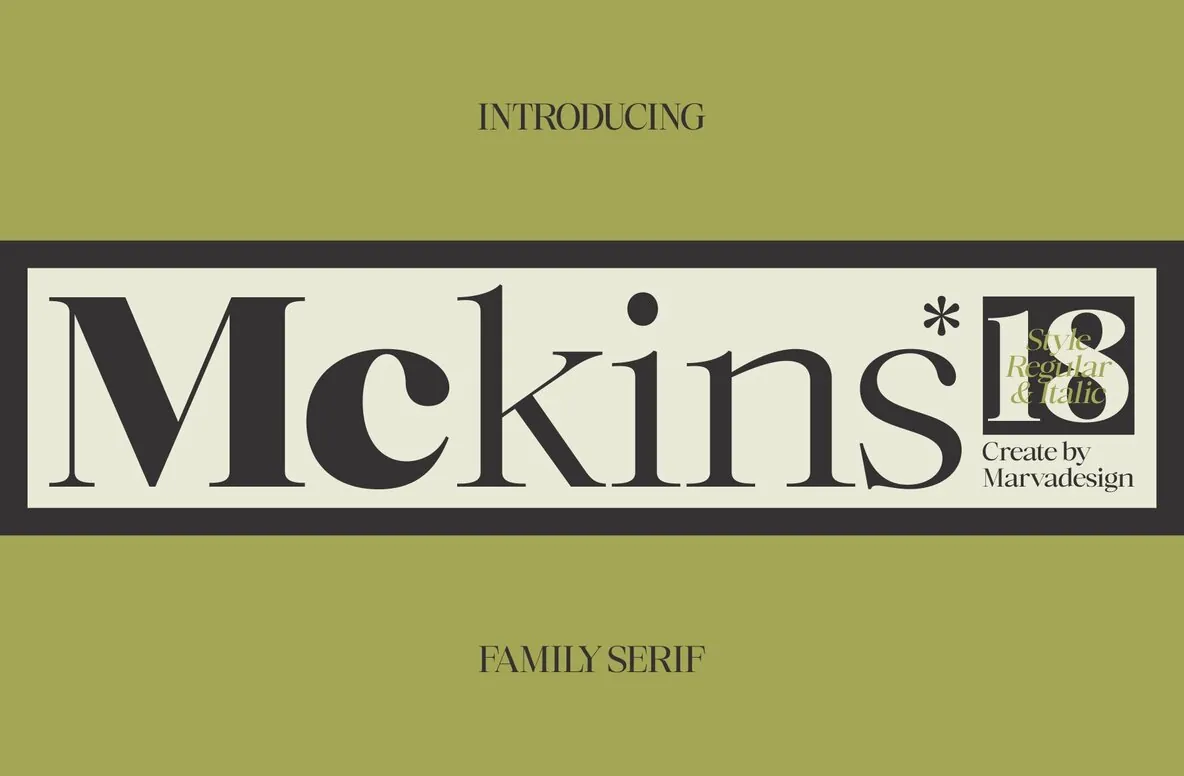
Mckins Font
Mckins: High-Contrast Serif for Editorial Work
A sophisticated serif typeface that blends traditional serif influences with contemporary design details. High-contrast strokes and elegant proportions give it a timeless tone, while keeping it flexible for modern typography across print and digital design.
Designed by Marvadesign, Mckins comes in 18 distinct styles, including upright and italic versions ranging from Thin to Black. Sharp terminals, pronounced vertical stress, and graceful curves bring clarity and character to layouts. Use it for editorial design, branding systems, and visual identities where you need strong presence without sacrificing readability—whether in display settings or body text.
Features
18 styles, including upright and italic
Ranging from Thin to Black
Sharp terminals and elegant proportions
Suited for editorial, branding, and visual identities
High readability in both display and text applications